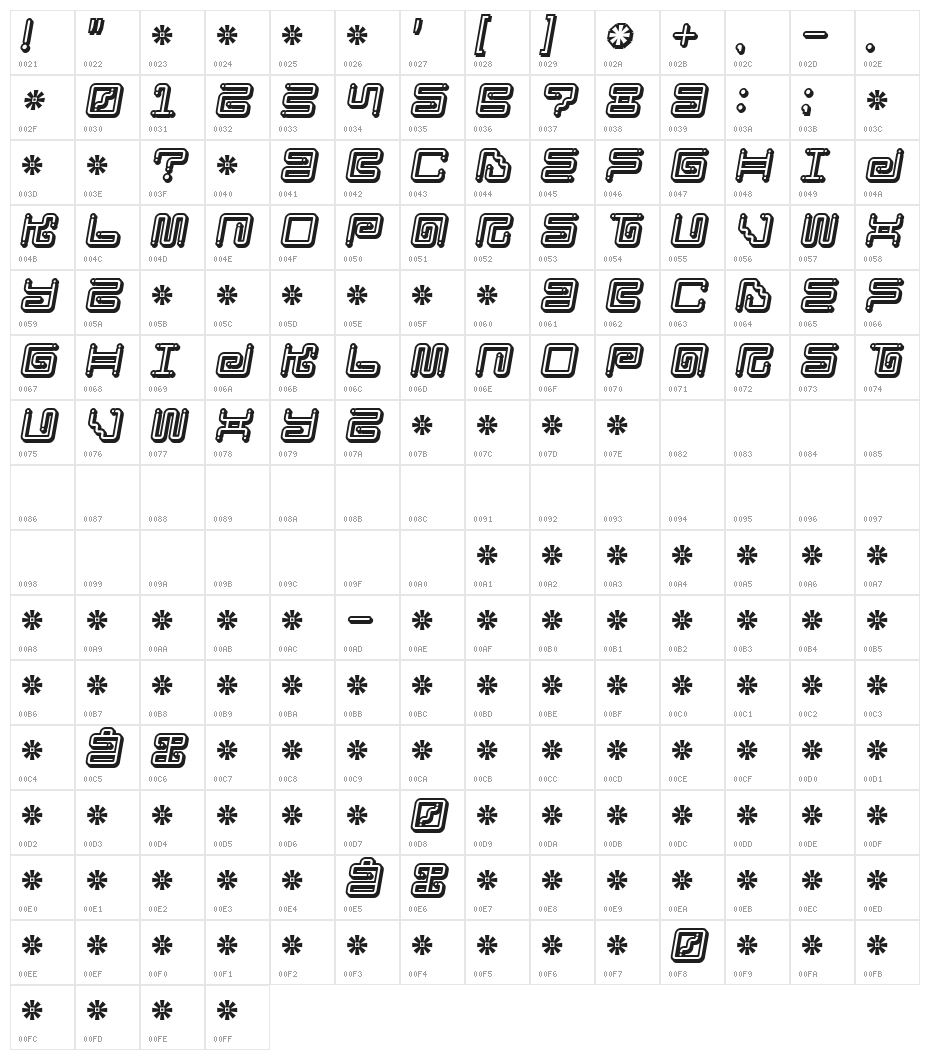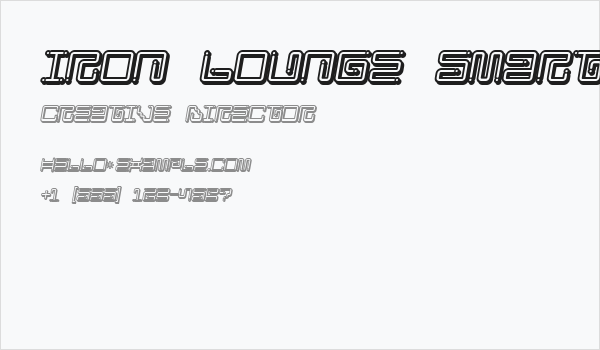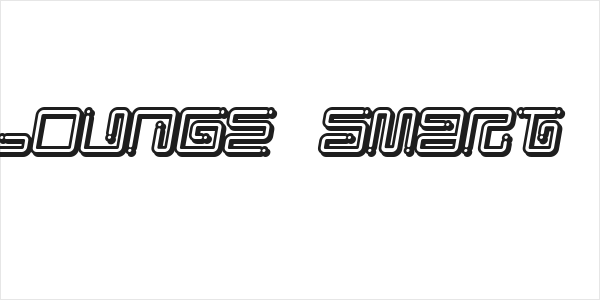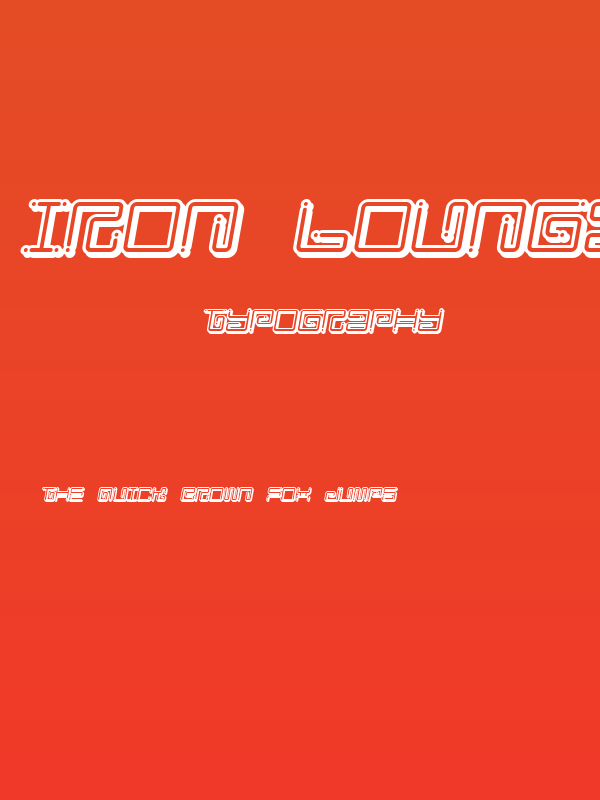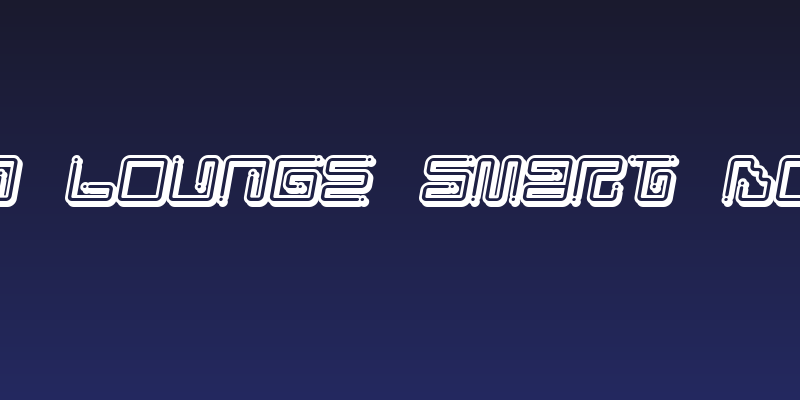
Iron Lounge Smart Dot 2 Font
Iron Lounge Smart Dot 2 Description
This font features a futuristic and digital-inspired design, characterized by its bold, geometric shapes and interconnected lines. The characters are outlined with a double-layered effect, giving them a three-dimensional appearance. The design incorporates rounded corners and small circular accents at intersections, enhancing its tech-savvy aesthetic. The font maintains consistent line thickness throughout, contributing to a cohesive and structured look. Its unique style makes it stand out, suitable for projects that require a modern and innovative touch.
| Proposed Projects | Ideal for technology branding, digital art projects, video game titles, and sci-fi themed designs. |